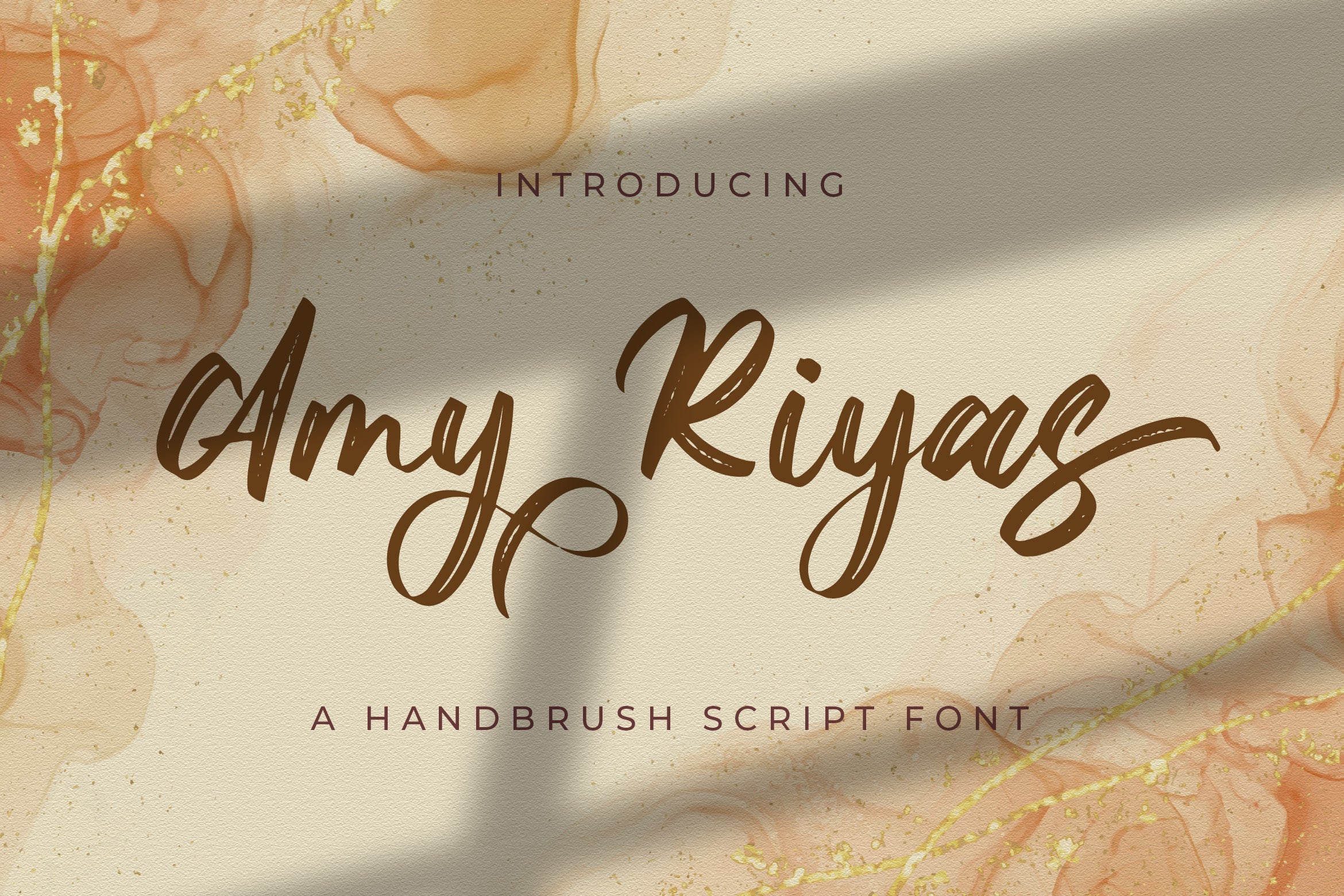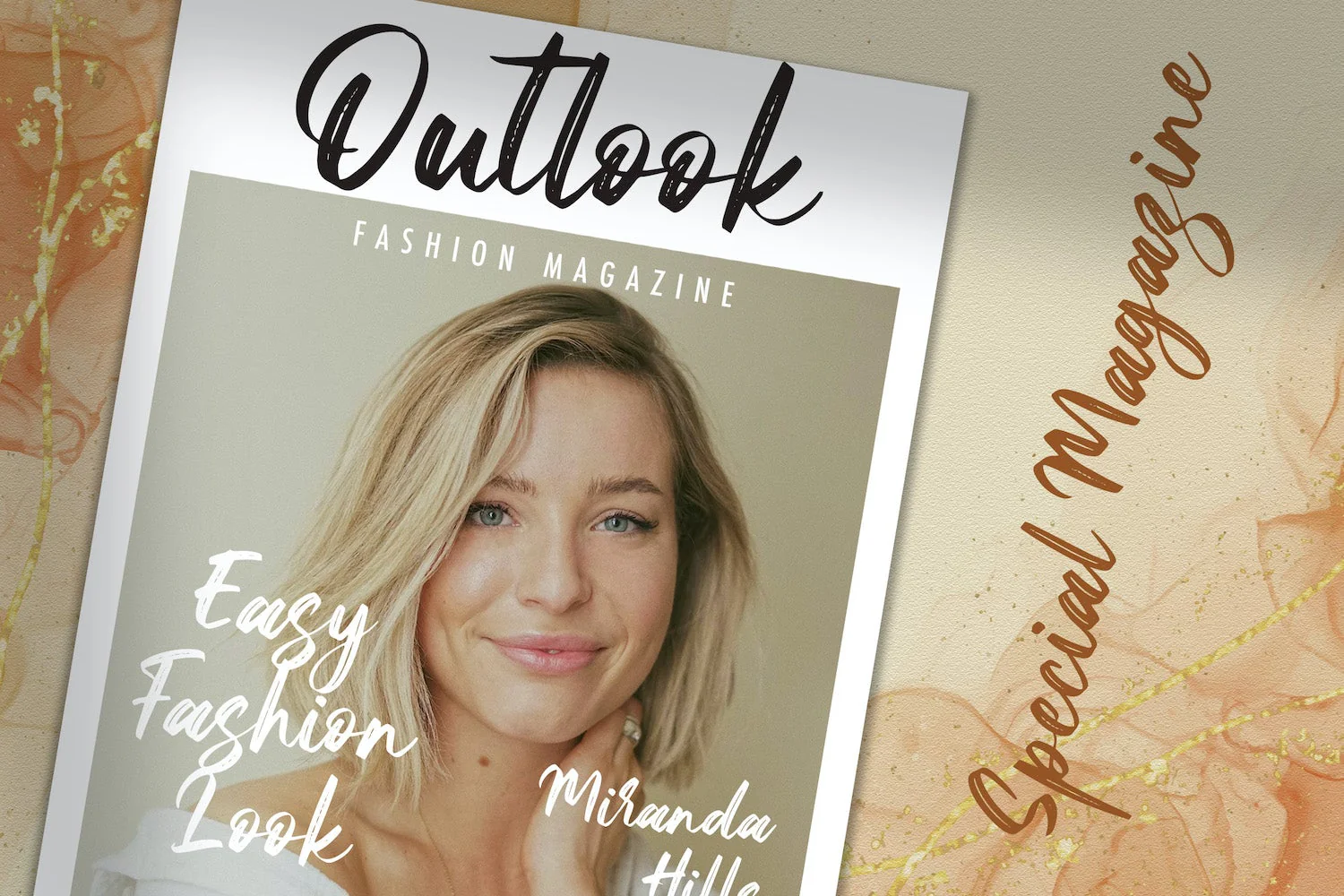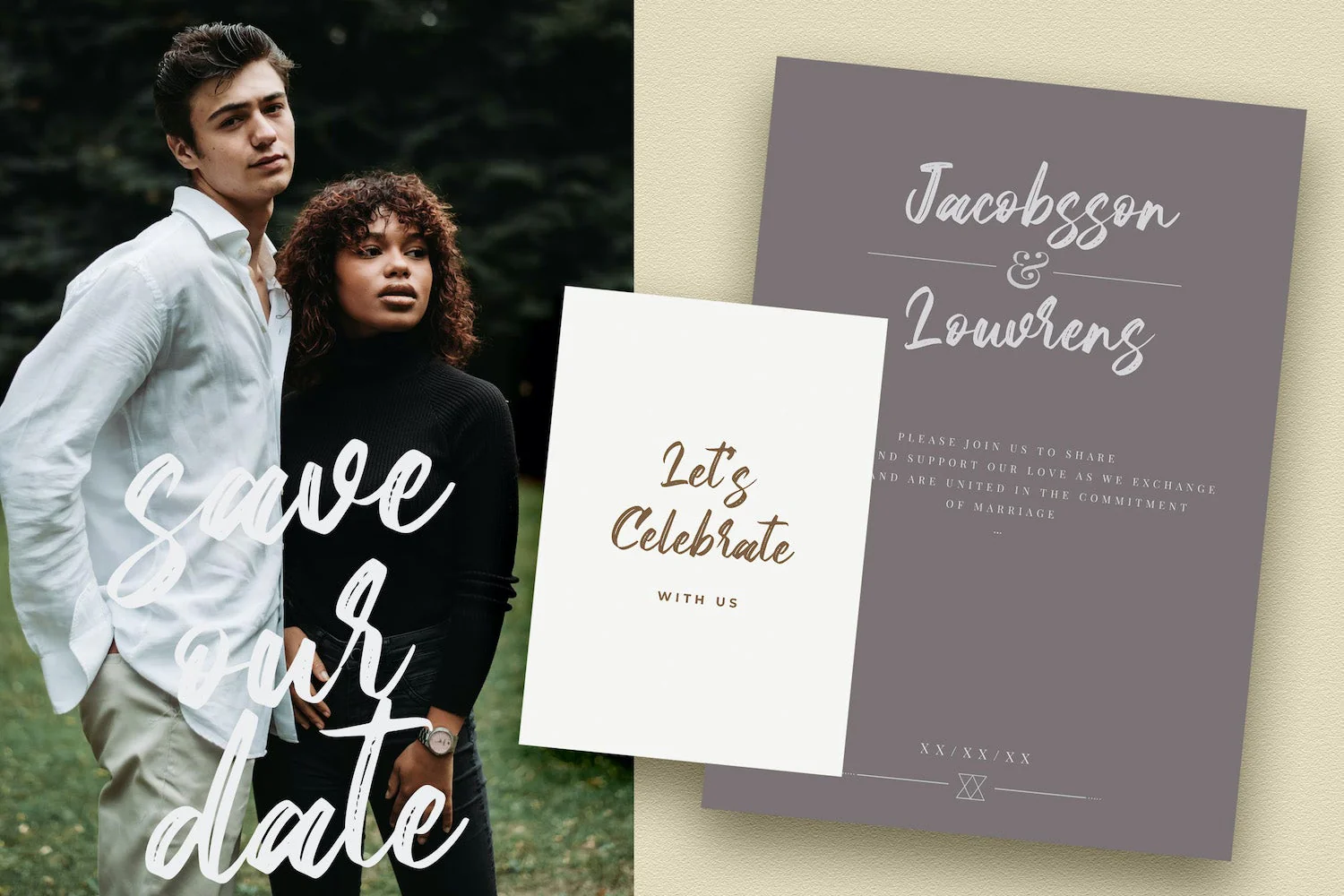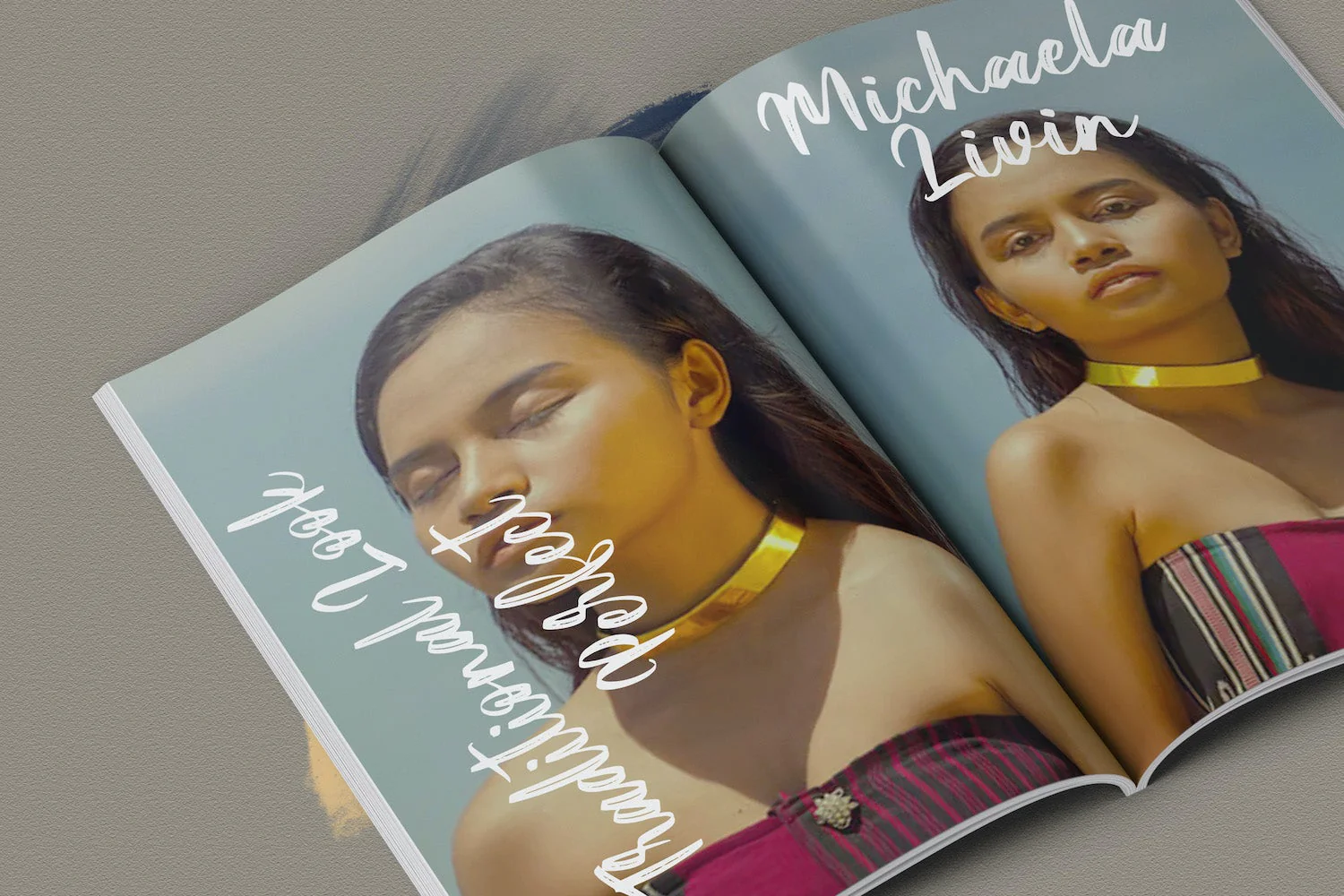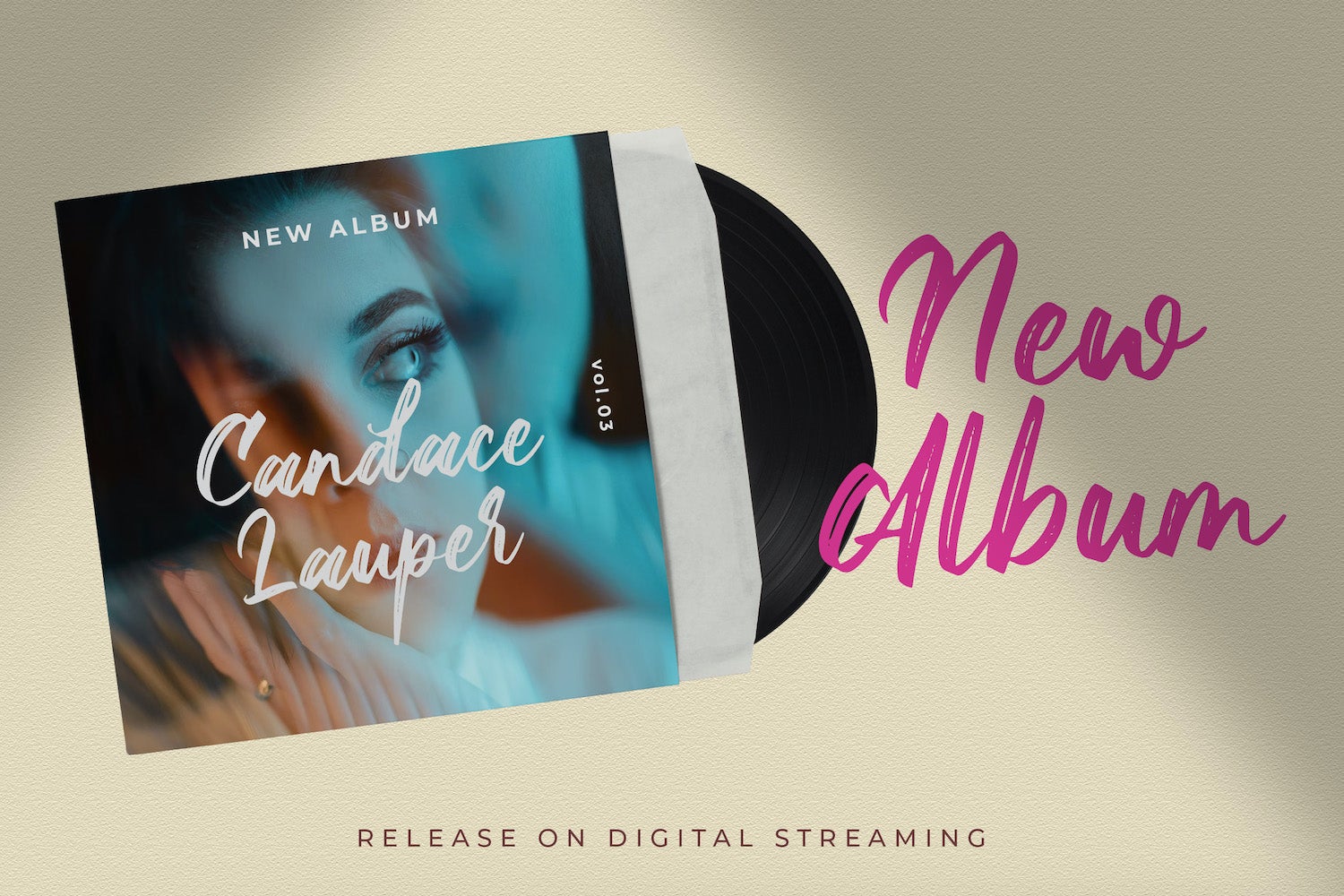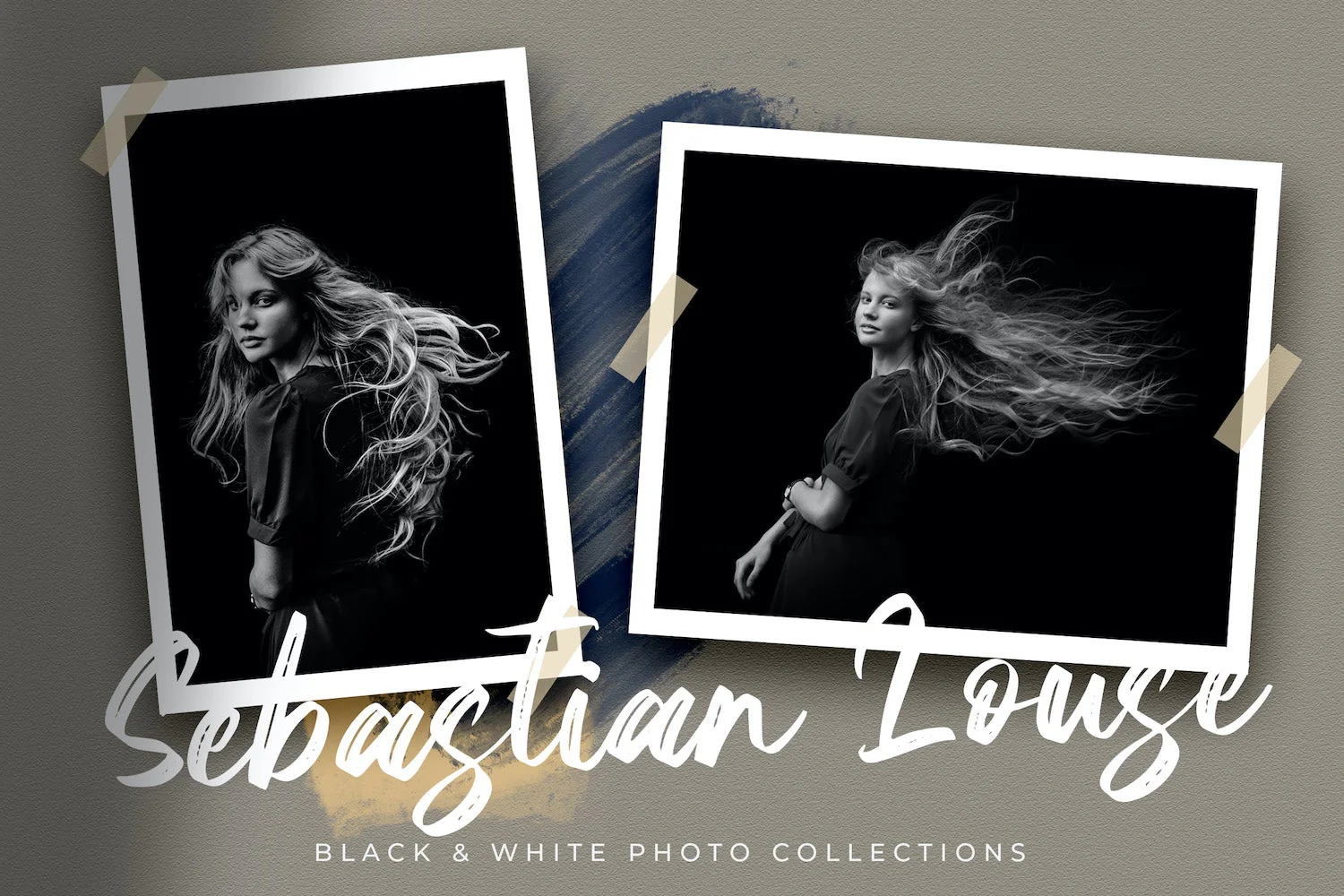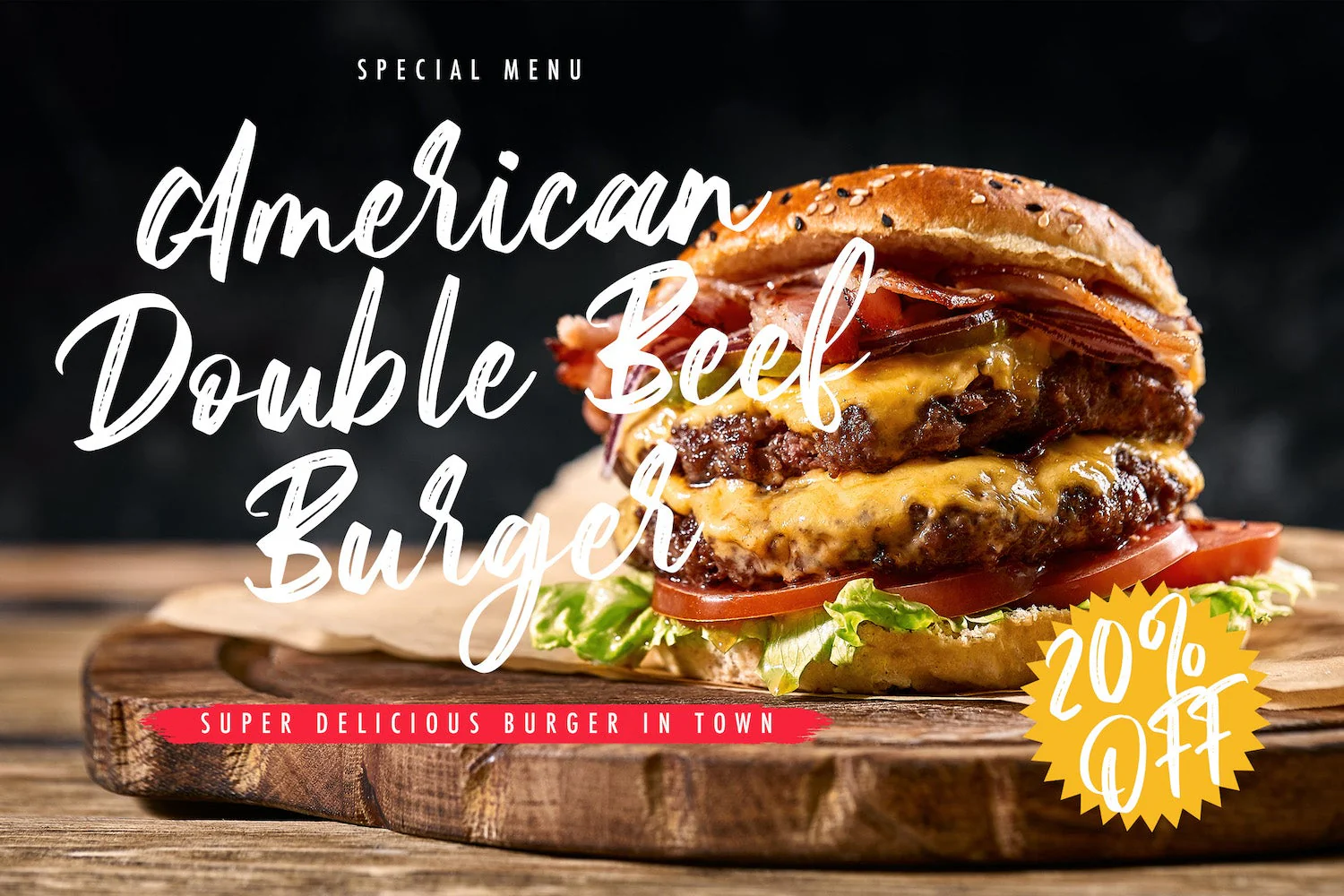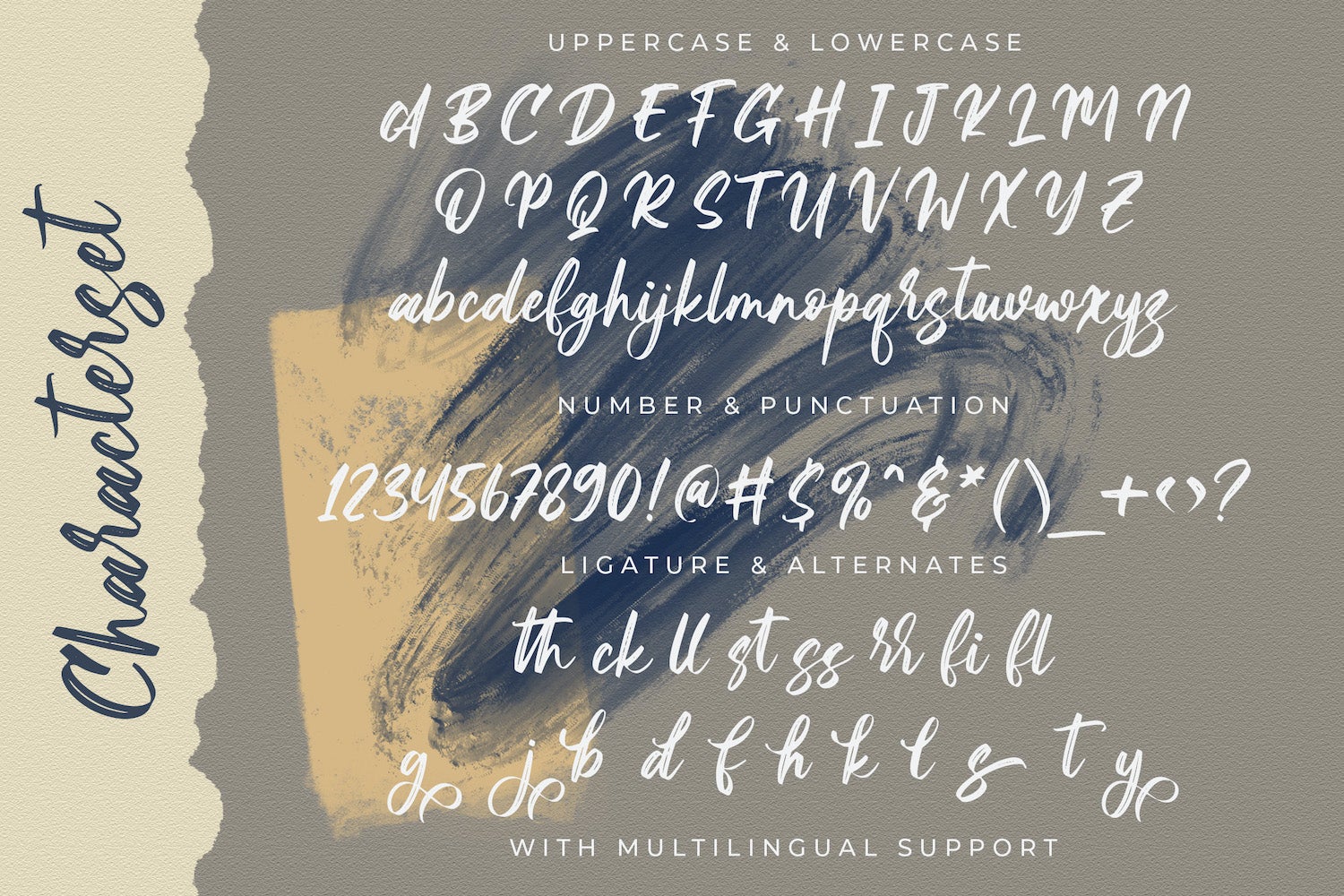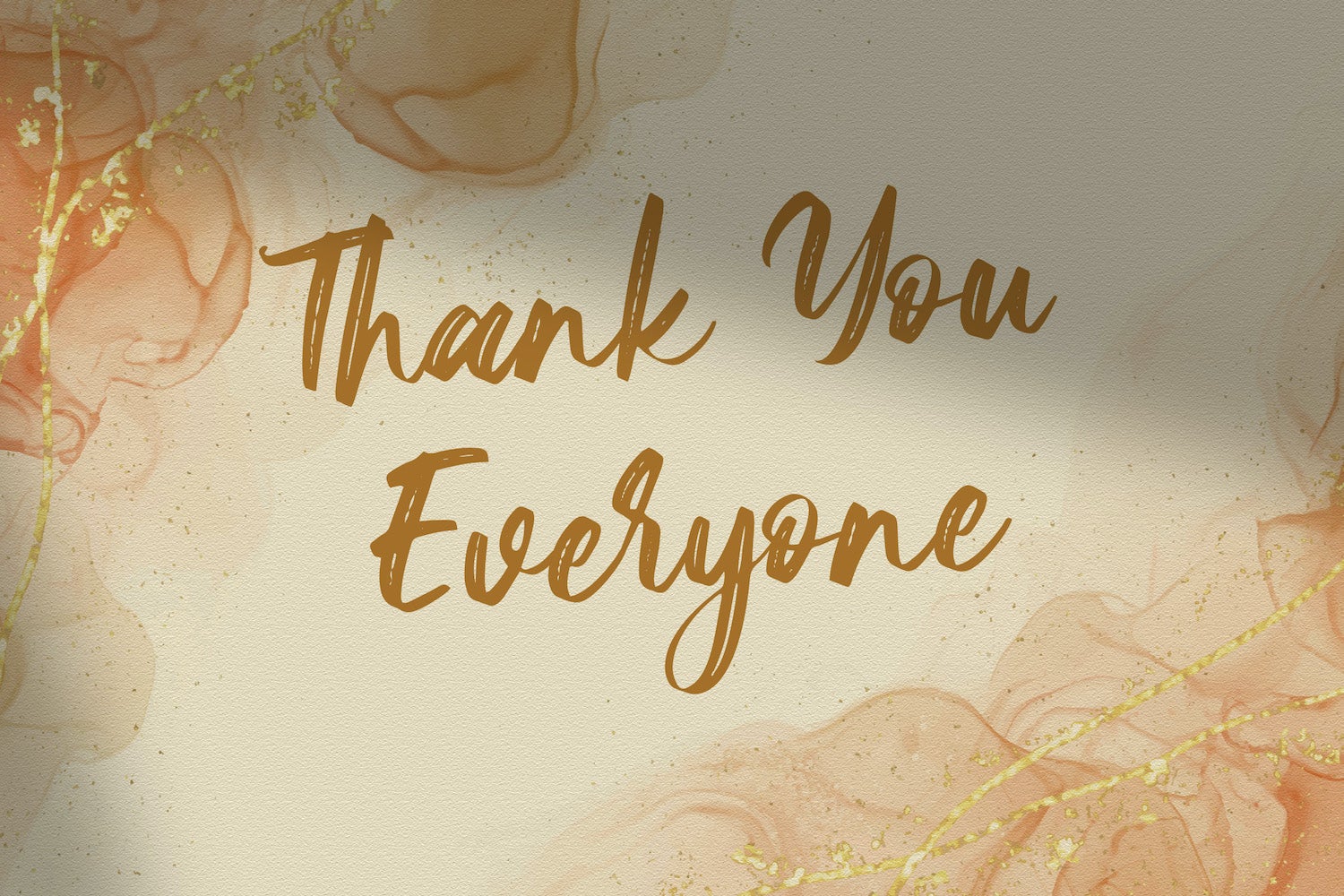
Amy Riyas - Textured Brush Font
Introducing Amy Riyas - Textured Brush Font
Amy Riyas is a textured handbrush font. Get inspired by its unique and beautiful style and add it to your favorite designs!
Introducing Amy Riyas - Textured Brush Font
Amy Riyas is a textured handbrush font. Get inspired by its unique and beautiful style and add it to your favorite designs!